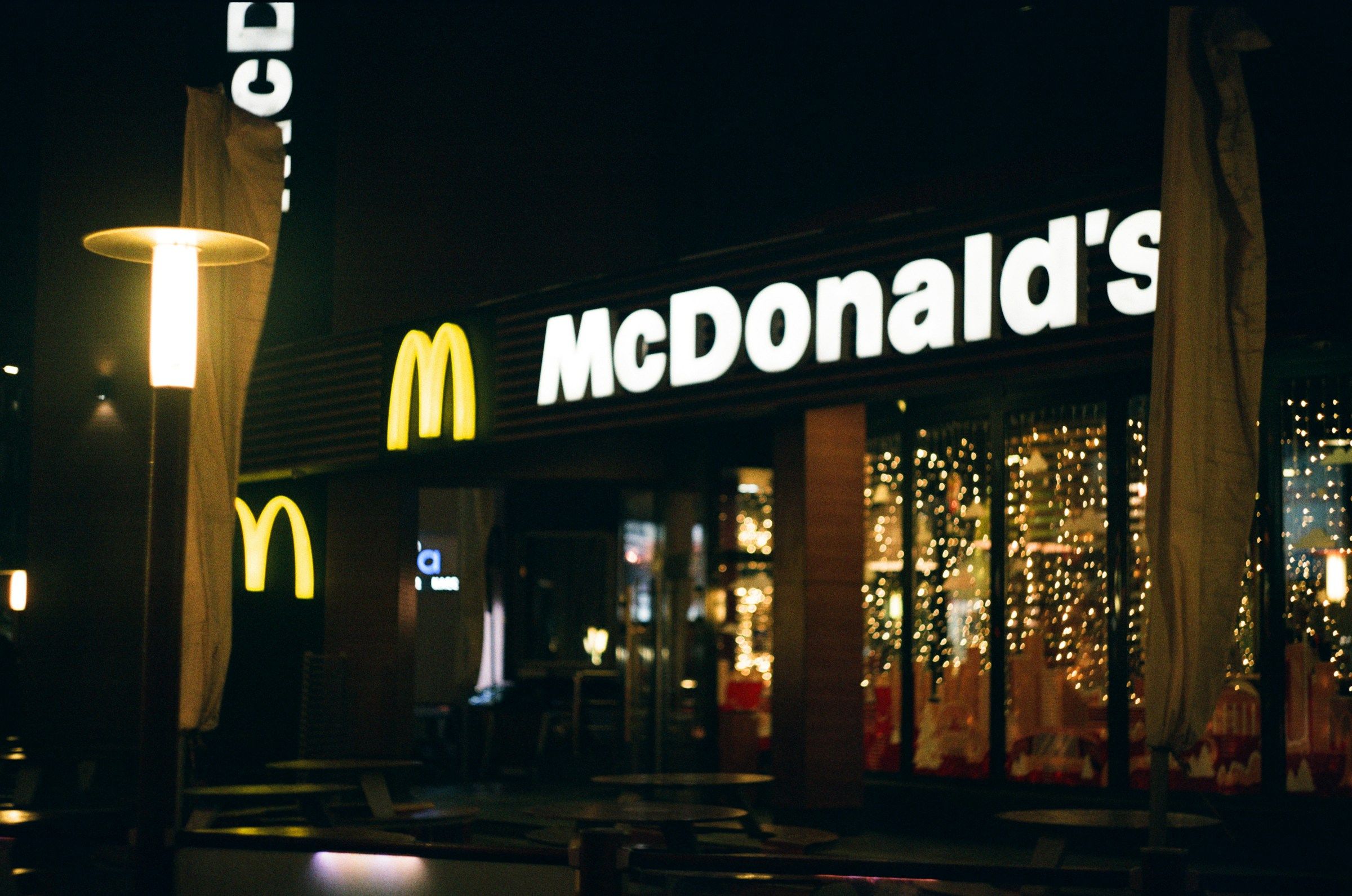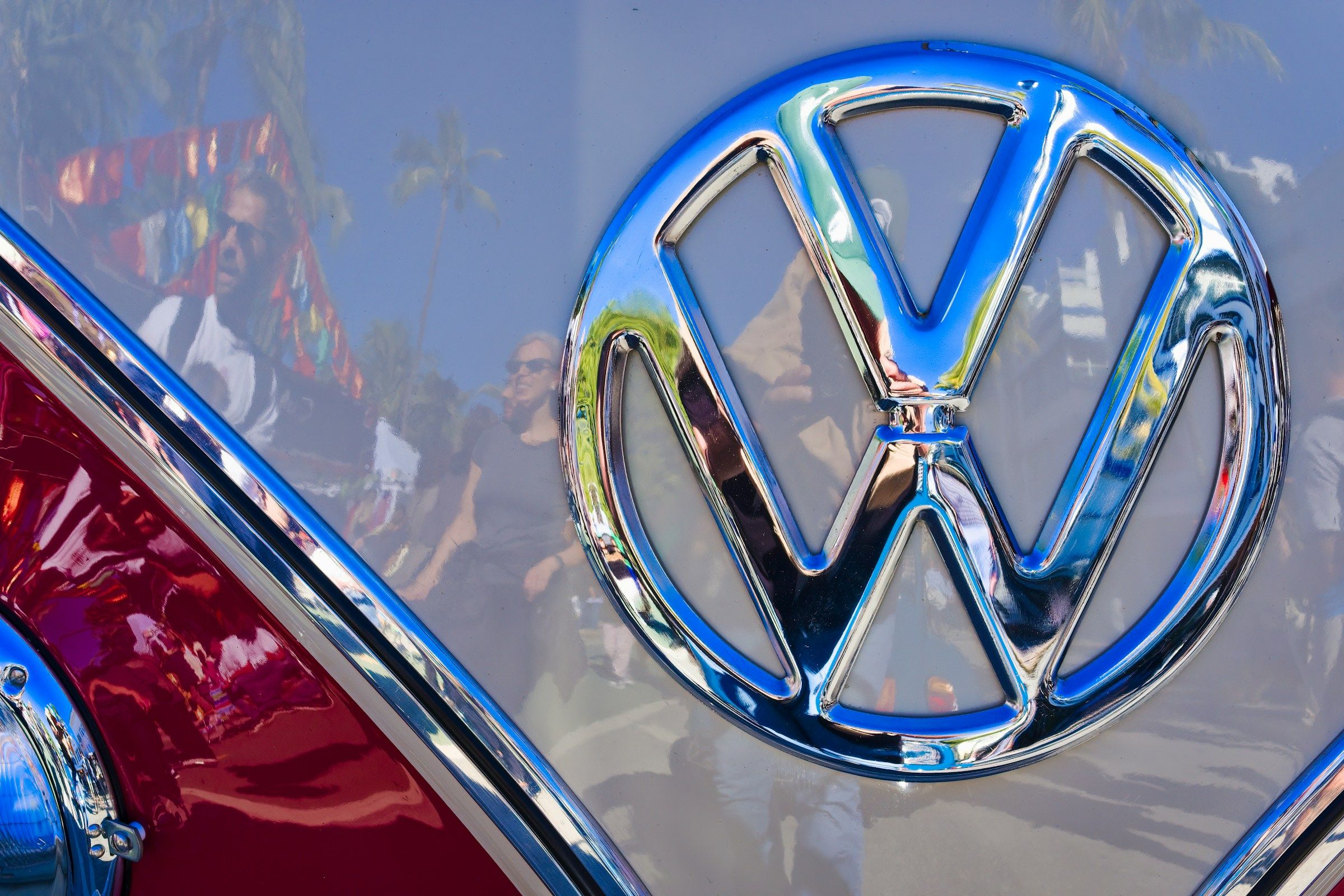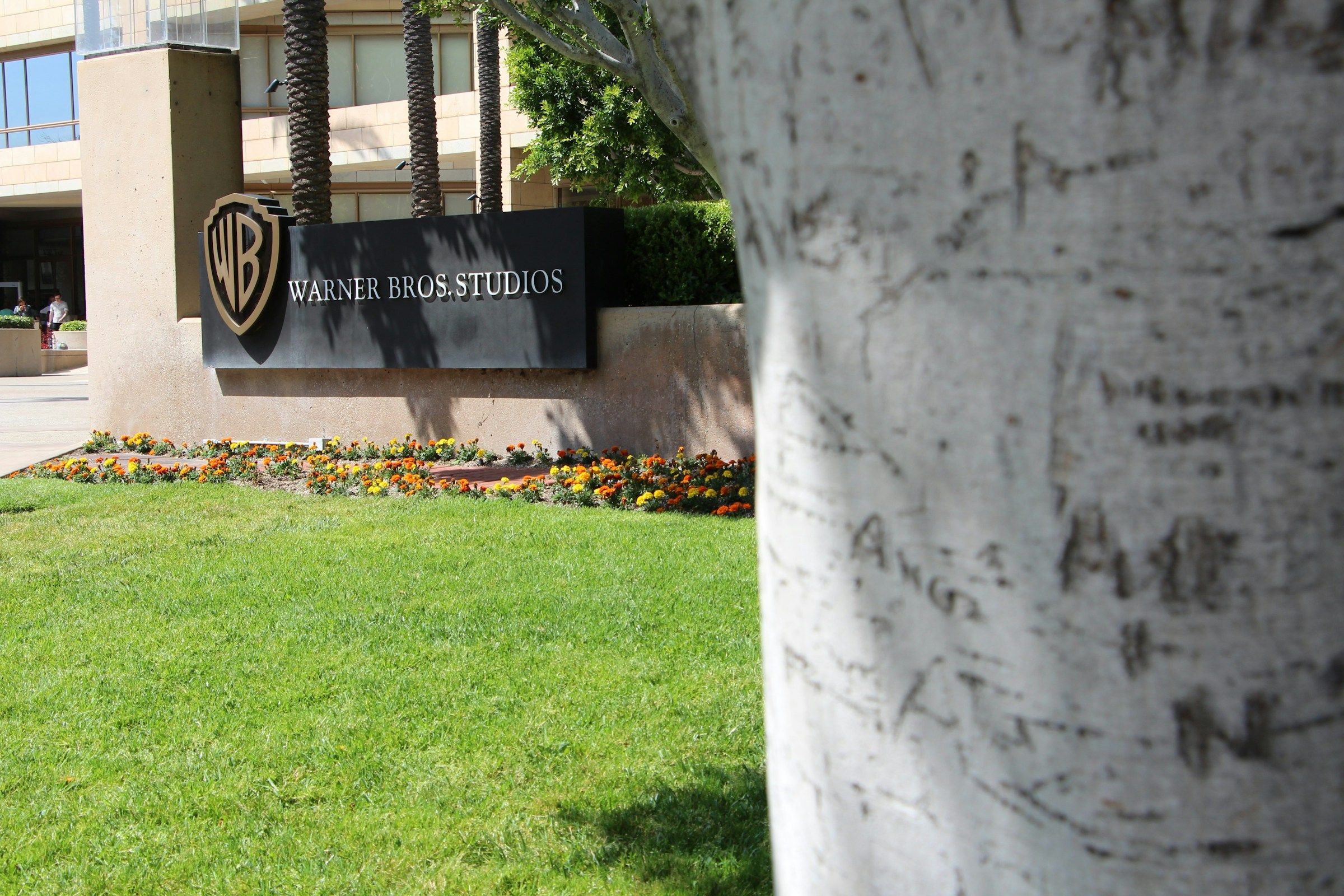
Monogram logo design begins with restraint and ends with recognition. Nothing feels loud, yet every detail plays a crucial role in shaping one’s identity. Built through intention, form becomes the message. Several letters often hold the clearest reflection of the brand, even though the next part is not always immediately apparent.
Key Takeaways:
- Effective design choices rely on restraint, enabling clear identity communication.
- Every element carries intention, even when it appears minimal.
- Compared to noise or decoration, shape is more important.
- Simplicity draws the eye, yet more profound significance reveals itself with careful examination.
Defining Visual Purpose Through Monogram Logo Design
Strong identity often begins with less. According to Statista, 55% of adults in the U.S. prefer simple logos over complex or bold alternatives. Such a trend highlights a growing focus on clarity in visual identity. A design built from just a few letters continues to gain favor for its clarity and refinement.
Monogram logo design brings initials together with careful balance, offering identity through shape rather than excess. Although additional elements may arise, composition, restraint, and visual logic remain. The charm goes beyond pure aesthetics and subtly reveals itself.
Stand Out Instantly by Creating Monogram Logos
Minimalist logos communicate clearly by reducing unnecessary parts. A clean, focused design helps you stand out in competitive marketplaces. Such an approach appeals to both designers and business leaders and requires proven techniques to create monogram logo, such as:
1. Aligning Design With Audience
Monogram logo design tips emphasize understanding the brand’s personality, values, audience, and industry to shape tone and message. A clear grasp of these elements guides the creation of visuals that effectively connect with the target market.
2. Picking Fonts Based on the Style
When creating a one-of-a-kind monogram logo design, choosing the right font is crucial. Serif typefaces give a sense of time past, whilst sans-serif fonts stand for clean, modern shapes.
3. Elevate Logos with Unique Touches
Incorporating distinctive elements that mirror the genuine character of the brand will improve the design’s balance by integrating geometric shapes.
4. Use Wise Colors for Better Results
Choose no more than two colors for maximum clarity and impact. With an appropriate color scheme, the shape of the monogram may stand out from other designs.
5. Layered Letters Unite Brand Elements
The interplay of overlapping letters contributes to a sense of depth and unity, resulting in dynamic shapes that significantly enhance the brand’s personality.
Simple, well-balanced monogram logos generate distinctive identities. Designing becomes effortless with the correct approach. Some secret advice can have a significant impact.
Secrets Hidden Within Minimal Details Revealed
Exploring ‘what is a monogram logo’ reveals how simplicity, balance, and brand identity combine to cohesive visuals. The best illustrations often bring these ideas into more precise focus.
Further, maintaining relevance and aesthetic appeal in monogram logo design involves more than chasing trends. A careful blend of creativity and purpose ensures every element contributes meaningfully rather than decoratively. The insights ahead reveal how precise decisions support harmony and brand integrity over time.
1. Design for Easy Recognition
Keep it simple for easy recall. Use clean lines to show identity. Avoid clutter at all costs. Let the design speak clearly.
2. Consistent with Brand’s Identity
Center every design choice on the brand’s unique identity, ensuring the monogram embodies its values, personality, and core message.
3. Harmonize Elements for Visual Appeal
Balance initial sizes carefully to create a smooth, cohesive flow without any element overpowering the design.
4. Reflect Audience with Font Style
Identify a unique typeface that reflects the fundamental values of the brand while effectively engaging the intended audience.
5. Maintain Symmetry When Possible
Balance keeps every element connected. No part dominates, creating a seamless flow between letters and spaces.
How Top Companies Use Monogram Logo Design Creatively
Through refined simplicity and intentional structure, a monogram logo design effectively expresses a brand’s identity. Visual harmony and purposeful letterforms combine to create symbols seen in famous, big brand logos that communicate clearly.
The principles reveal their strength across various industries worldwide, as seen in these monogram logo examples.
1. Christian Dior
Dior (Image Source: Unsplash.com)
The logo of Christian Dior represents sophistication by showcasing a timeless luxury through its elegant, all-uppercase letters.
Typography plays a fundamental role, with font choice directly impacting brand personality, as demonstrated by Brienny Advertising from Lettersiro. Available in two meticulously crafted styles, regular and italic, the font offers modern elegance alongside versatile application across various design contexts. Remember that the clear characters ensure excellent legibility, while refined details enhance the distinctiveness and effectiveness of monogram marks. So, how will you create a monogram design for your company to attract more customers?